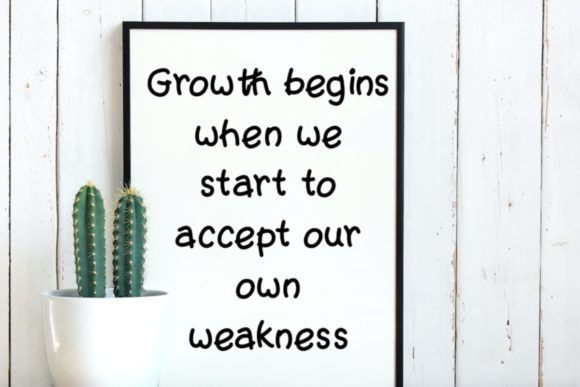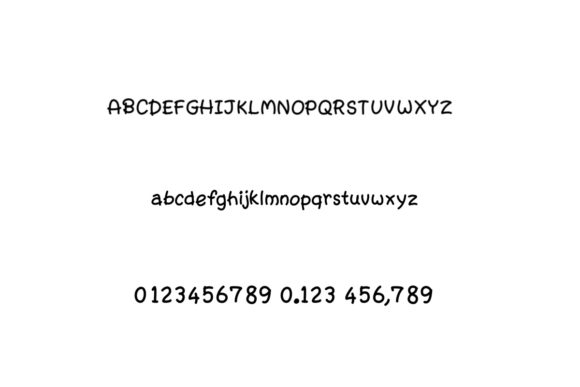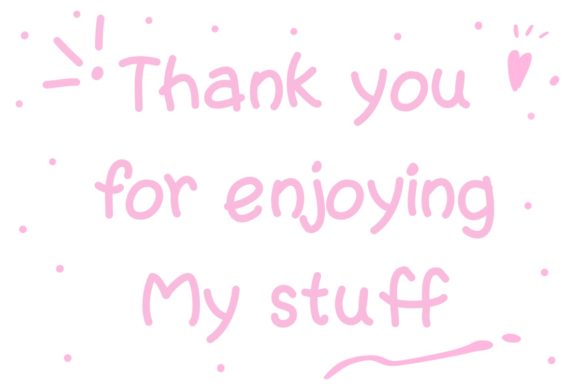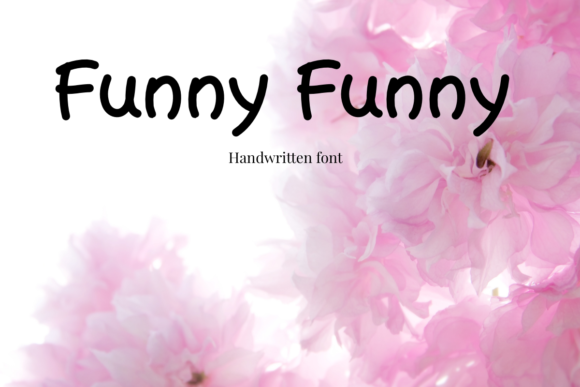
Introducing Funny Funny Font: The Ultimate Handwritten Delight
Are you tired of using the same old fonts in your designs? Look no further! Funny Funny Font is here to add a touch of sweetness and friendliness to your creations. This handwritten font is perfect for designers and crafters who want to add a personal and unique touch to their work.
The Charm of Funny Funny Font
Funny Funny Font is a sweet and friendly handwritten font that boasts a natural and unique style. Its charm lies in its imperfections, making it incredibly fitting for a wide range of designs. Whether you’re working on a project for a client or creating something for personal use, this font is sure to bring a smile to your face.
Endless Possibilities
The versatility of Funny Funny Font is one of its most appealing features. The only limit is your imagination! You can use it to create:
- Invitations and greeting cards that feel personal and special
- Social media graphics that stand out from the crowd
- Branding materials that showcase your unique personality
- DIY projects that require a touch of whimsy
- And so much more!
What Makes Funny Funny Font So Special?
So, what sets Funny Funny Font apart from other handwritten fonts? Here are a few reasons why it’s a cut above the rest:
- Unique character set: Each letter and number has been carefully crafted to ensure that your text looks natural and effortless.
- Natural flow: The font’s natural flow makes it perfect for creating flowing text or headings that grab attention.
- Highly legible: Despite its playful nature, Funny Funny Font remains highly legible, even at smaller sizes.
Tips for Using Funny Funny Font
To get the most out of Funny Funny Font, here are a few tips to keep in mind:
- Mix and match: Combine Funny Funny Font with other fonts to create a unique look that reflects your personality.
- Play with sizes: Experiment with different font sizes to add emphasis and create visual interest.
- Add embellishments: Consider adding embellishments, such as illustrations or graphics, to give your design an extra boost.
Funny Funny Font is a dream come true for designers and crafters who want to add a personal touch to their work. Whether you’re creating:
- Digital products, such as printables and planners
- Physical products, like stickers and iron-on transfers
- Or anything in between
This font is sure to become a staple in your design toolkit.
Get Ready to Have Fun!
With Funny Funny Font, the possibilities are endless! Don’t be afraid to experiment and try new things. Whether you’re a seasoned designer or a crafty beginner, this font is sure to bring a smile to your face and inspire your creativity.
In conclusion, Funny Funny Font is a sweet and friendly handwritten font that’s perfect for designers and crafters who want to add a personal touch to their work. Its natural and unique style makes it incredibly versatile, and the only limit is your imagination! So why wait? Give Funny Funny Font a try today and see what amazing creations you can come up with!